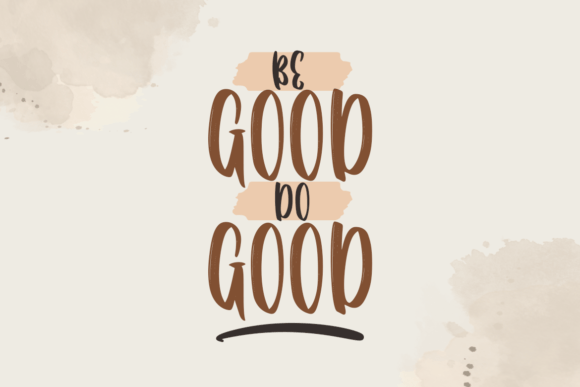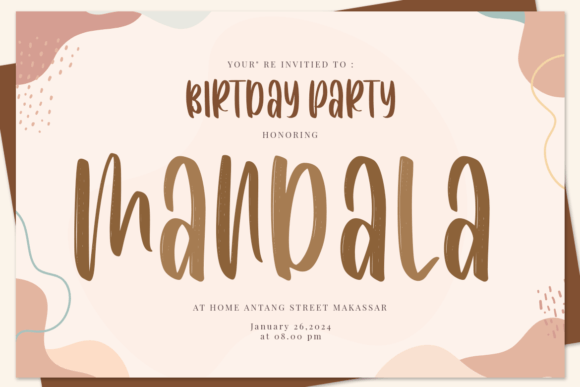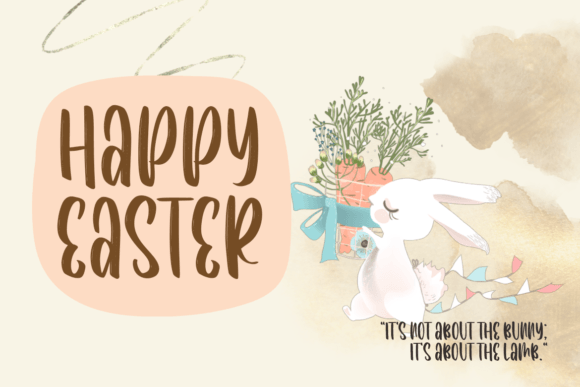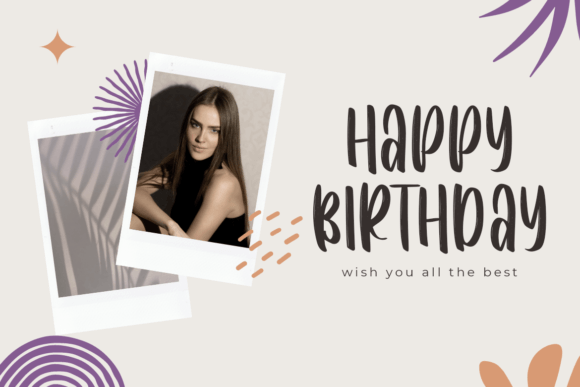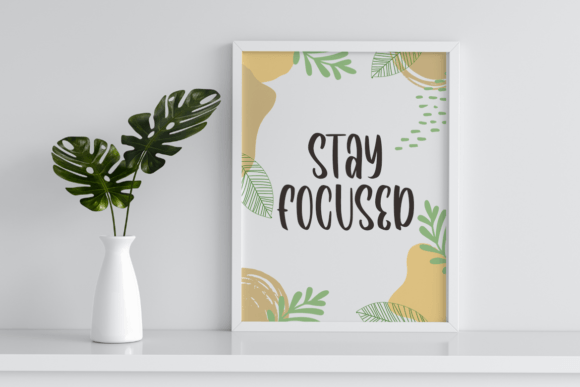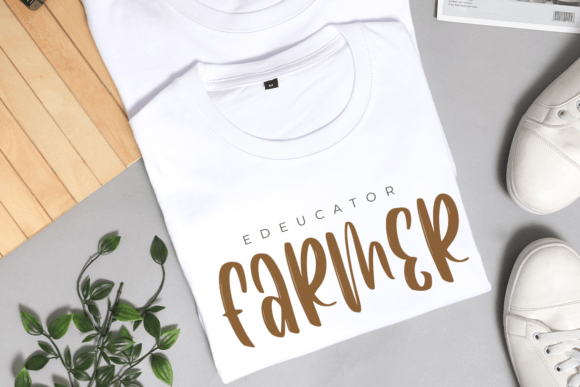
Introducing Drama Signaria Font: Elevate Your Designs with Elegance and Playfulness
In the world of typography, fonts play a crucial role in conveying the tone and personality of a design. For designers and crafters looking for a versatile, stylish, and playful handwritten script font, Drama Signaria is an excellent choice. This exquisite font is perfect for a wide spectrum of applications, including greeting cards, headlines, and many more. With Drama Signaria, you can add a touch of elegance and sophistication to any of your creative projects.
What Makes Drama Signaria Stand Out?
Drama Signaria is a beautifully crafted handwritten script font that boasts a unique blend of playfulness and sophistication. Its elegant strokes, smooth curves, and flowing lines make it perfect for designs that require a touch of refinement. Whether you’re working on a greeting card, invitation, or headline, Drama Signaria is sure to impress. Here are some key features that make Drama Signaria a standout font:
- Versatile: Drama Signaria is suitable for a wide range of applications, from formal to informal designs.
- Stylish: Its elegant strokes and smooth curves give it a sophisticated and refined look.
- Playful: Drama Signaria has a playful touch, making it perfect for designs that require a bit of whimsy.
- Handwritten: Its handwritten script style gives it a personal and unique feel.
Use Cases for Drama Signaria Font
Drama Signaria is an incredibly versatile font that can be used in various design projects. Here are some use cases to get you started:
- Greeting Cards: Add a touch of elegance to your greeting cards, whether it’s for a birthday, wedding, or holiday.
- Headlines: Use Drama Signaria to create eye-catching headlines for your blog posts, articles, or social media graphics.
- Invitations: Make your invitations stand out with Drama Signaria’s elegant and sophisticated style.
- Logos: Drama Signaria can be used to create unique and memorable logos for businesses or personal brands.
- Social Media Graphics: Add a touch of personality to your social media graphics, such as Instagram posts or Facebook covers.
Tips for Using Drama Signaria Effectively
To get the most out of Drama Signaria, here are some tips to keep in mind:
- Pair it with a simple font: Drama Signaria’s elegant style can be overwhelming if paired with another ornate font. Pair it with a simple font to create a beautiful contrast.
- Use it for headings: Drama Signaria is perfect for headings and titles. Use it to create eye-catching headings that draw attention.
- Experiment with colors: Drama Signaria looks great in a variety of colors. Experiment with different colors to find the one that works best for your design.
- Pay attention to spacing: Make sure to adjust the spacing between letters and words to create a clean and elegant look.
Drama Signaria is a versatile, stylish, and playful handwritten script font that’s perfect for designers and crafters looking to add a touch of elegance to their designs. With its elegant strokes, smooth curves, and flowing lines, Drama Signaria is sure to impress. Whether you’re working on a greeting card, headline, or logo, Drama Signaria is an excellent choice. So why wait? Add Drama Signaria to your creative projects today and give them a clean and exquisite feel.
In conclusion, Drama Signaria font is a great addition to any design project. Its unique blend of playfulness and sophistication makes it perfect for a wide range of applications. With its versatility, stylish design, and ease of use, Drama Signaria is sure to become a favorite among designers and crafters.